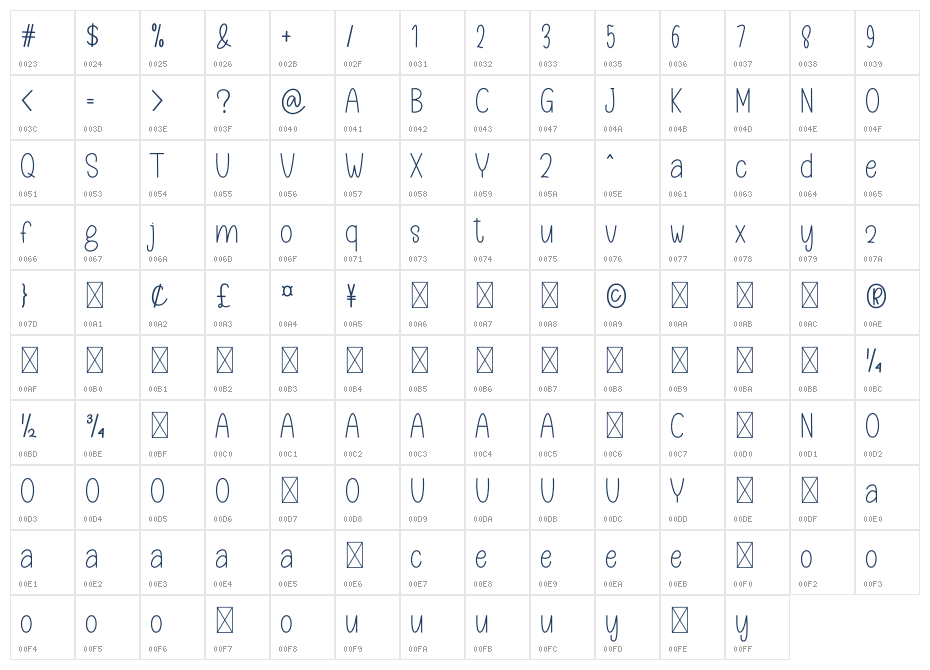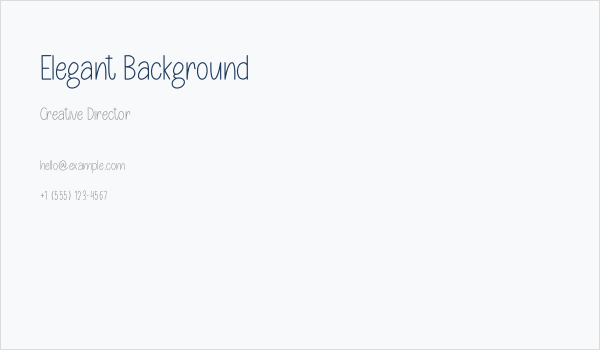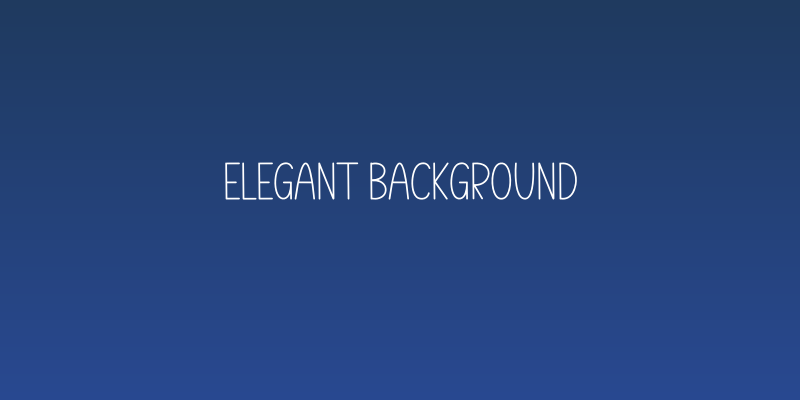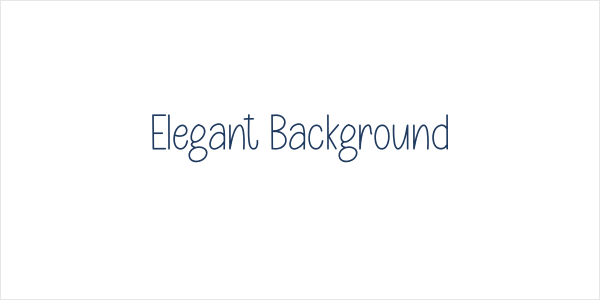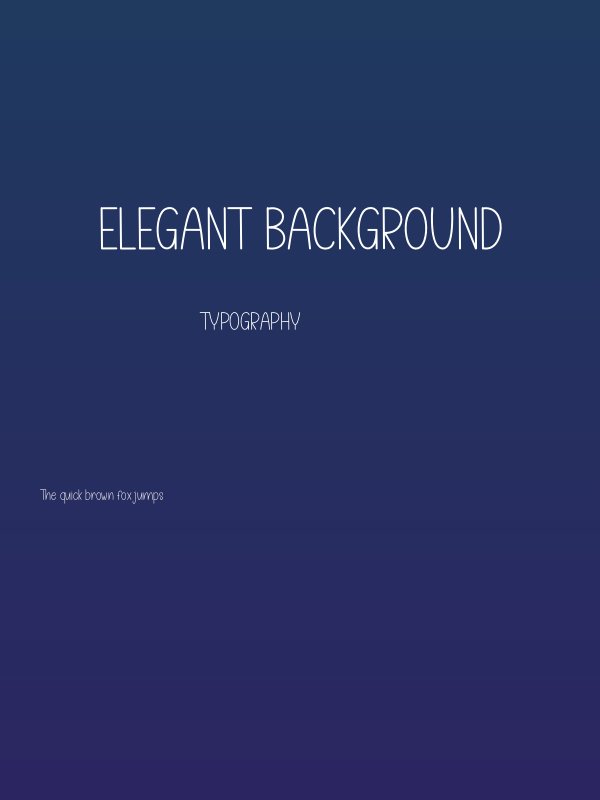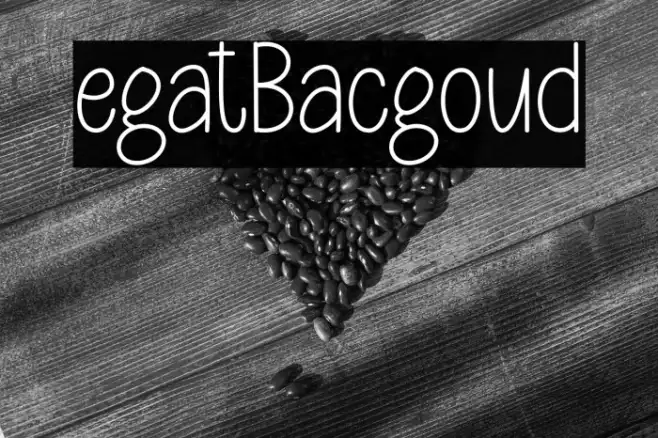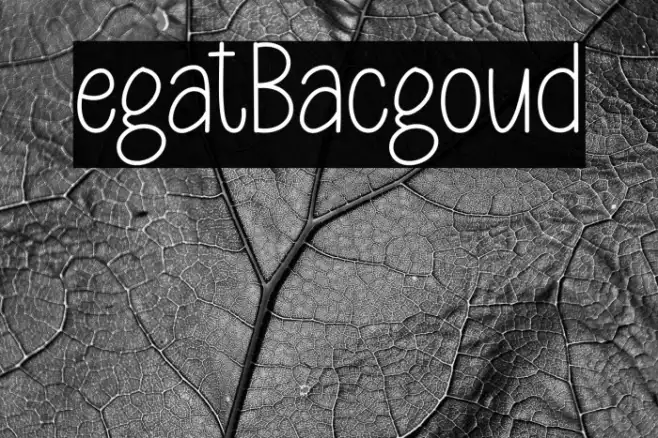
Elegant Background Font
Elegant Background Description
A handwritten, casual, and playful sans-serif font with a slightly irregular stroke, giving it a friendly and informal appearance.
| Overall Style | Casual, Playful, Handwritten |
| Use Case | Headlines, Body text, Invitations, Creative projects |